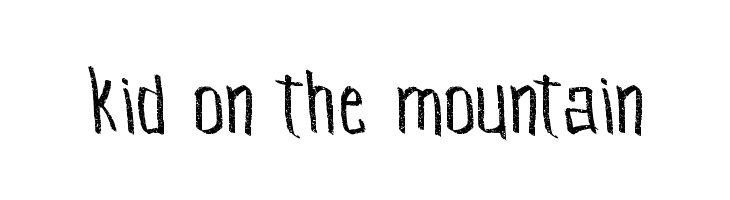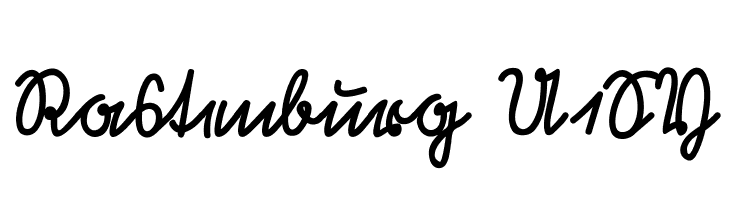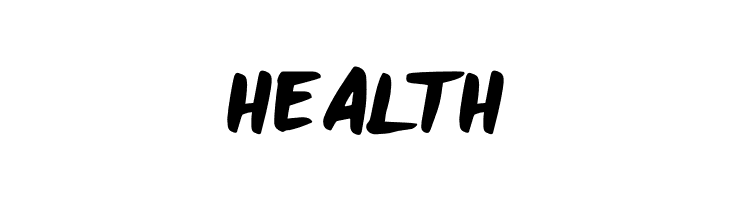
( Andréa de Carlo - www.thaneydesign.com )
A playful, hand-drawn font with a rustic and whimsical style.
( Caveras - Cliff Modes - caveras.net )
A bold, intricate blackletter-style font with gothic and medieval influences.
( Katz Fontz - katzfonts.50megs.com/kg.html )
An ornate and decorative font with intricate uppercase and outlined lowercase letters.
A playful, rounded font with smooth curves and consistent stroke width.
A modern, artistic font with flowing lines and a playful yet sophisticated style.
A playful, rough-textured font with a spooky, hand-drawn style.
A bold, geometric font with a modern and impactful design.
( Jessy Naudin - facebook.com/Devlose )
A modern, geometric font with clean lines and consistent stroke width.
( Fonts by Alit Design )
A playful, bold font with a bubble-like, rounded design.
A casual and flowing handwritten script with elegant connections.